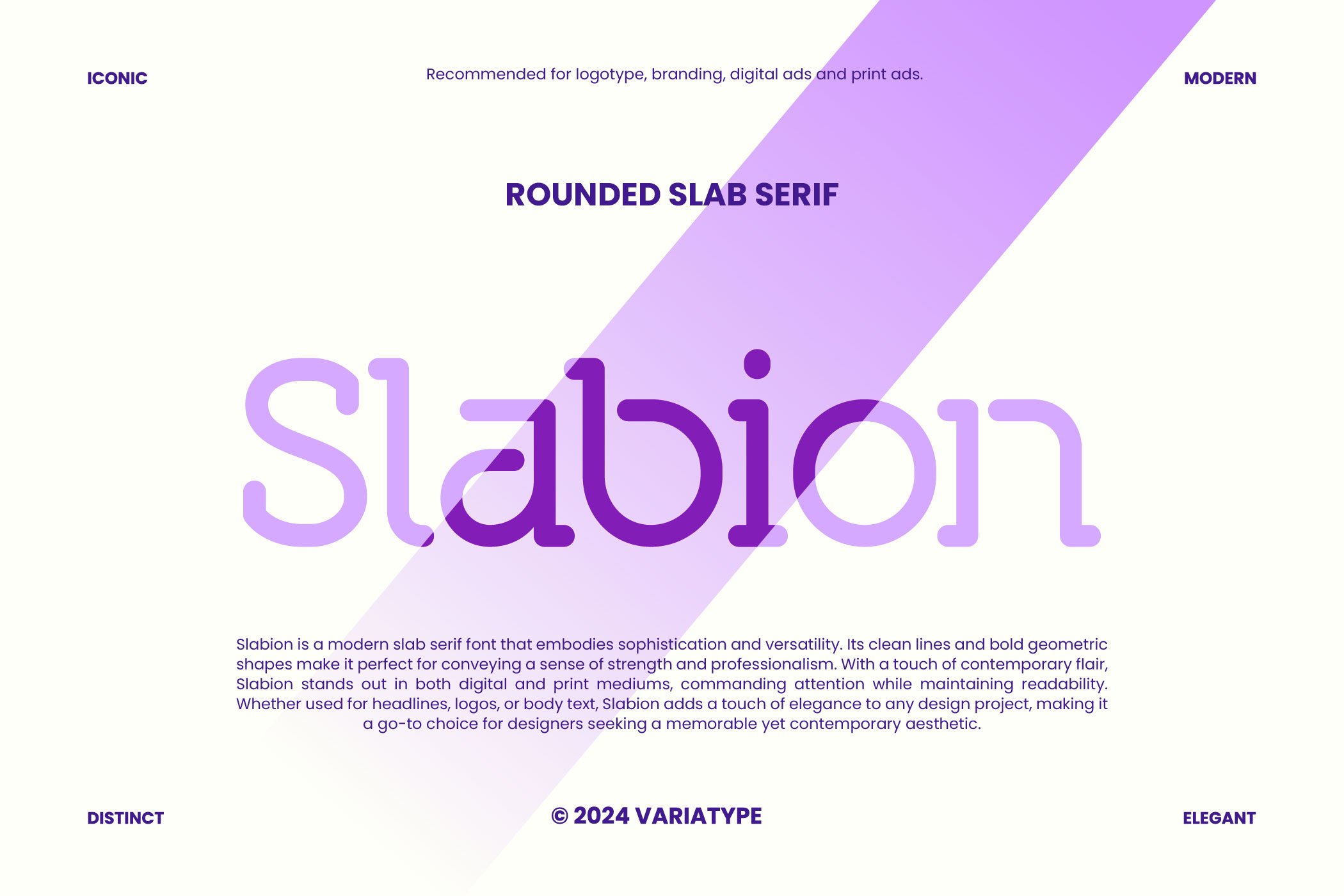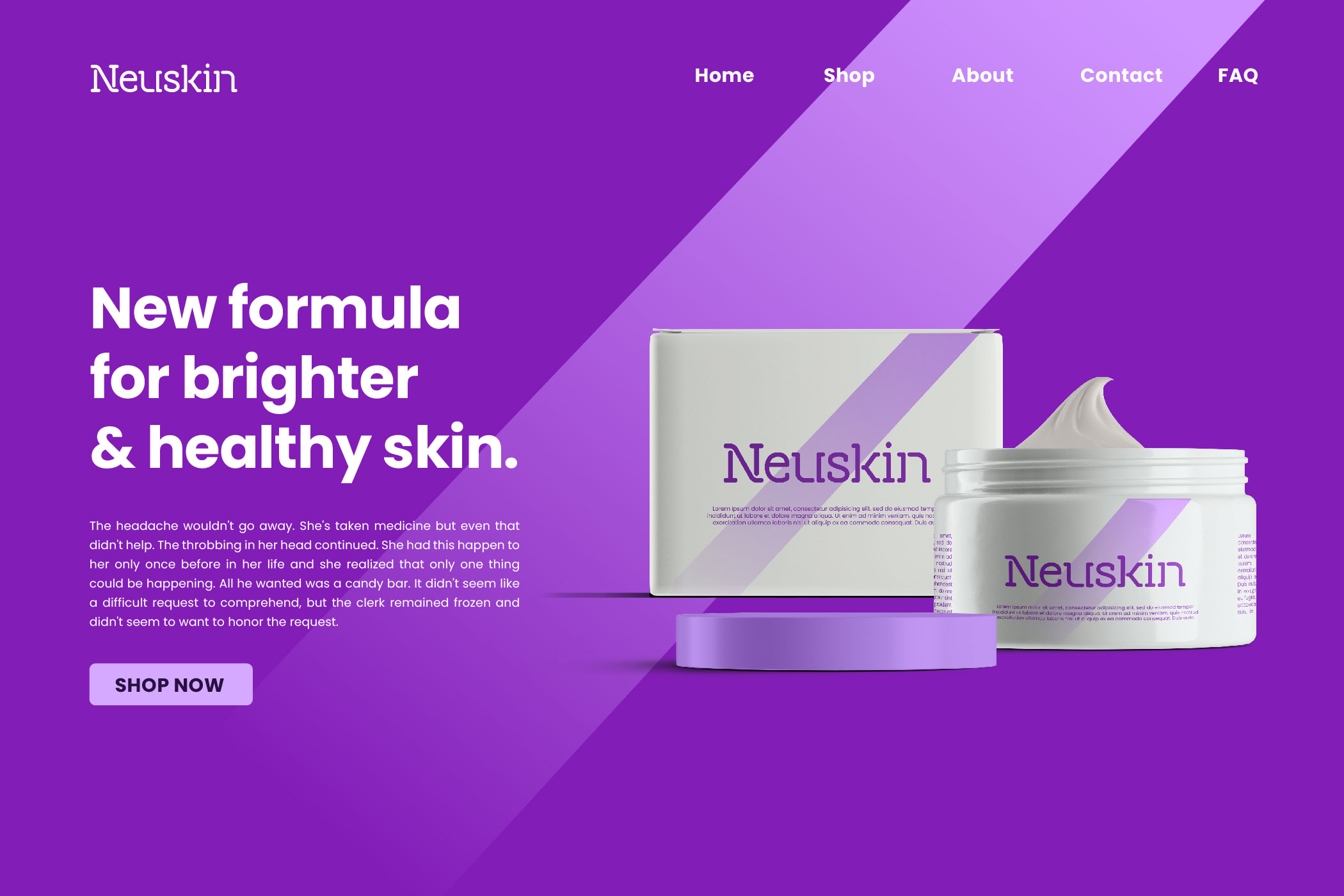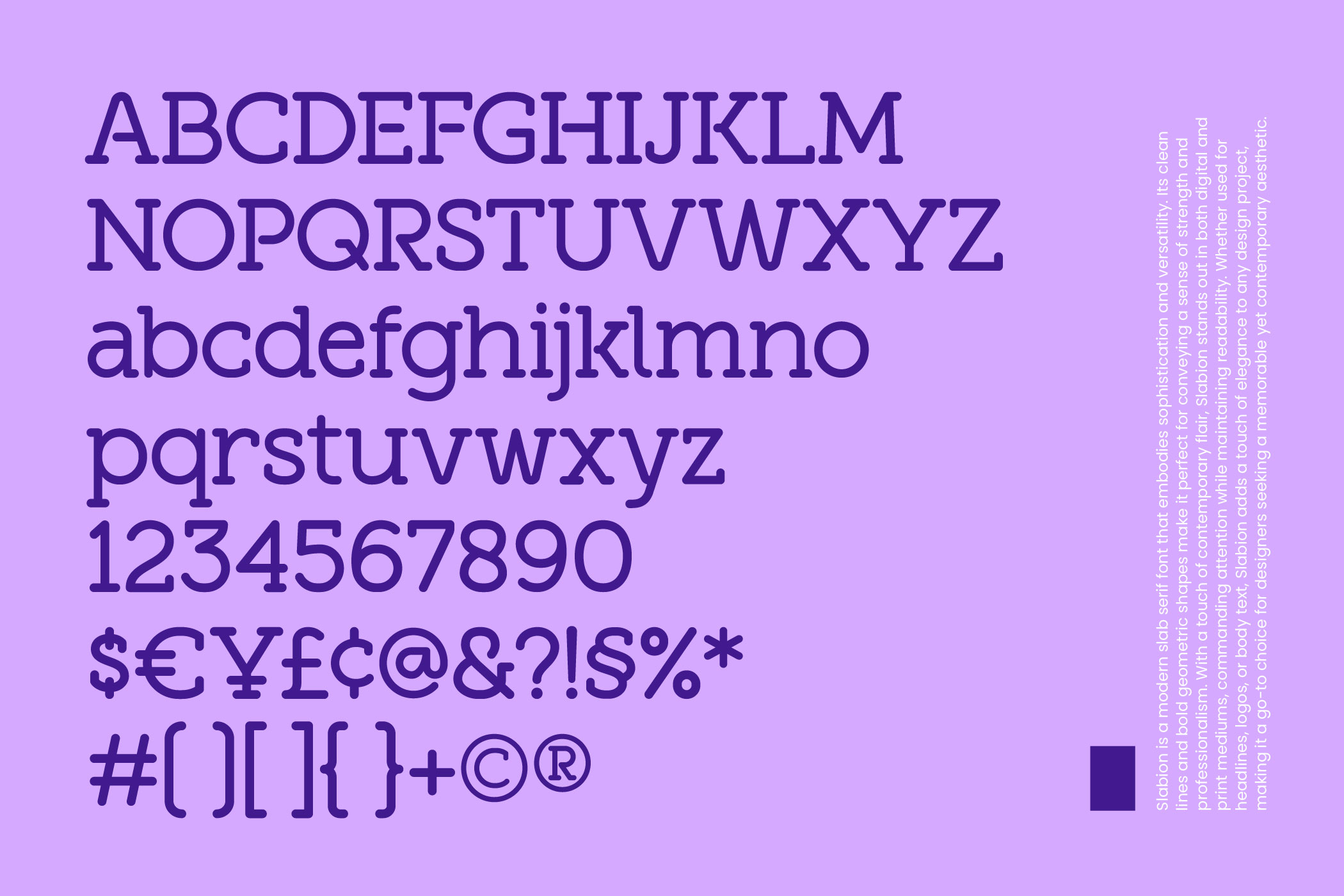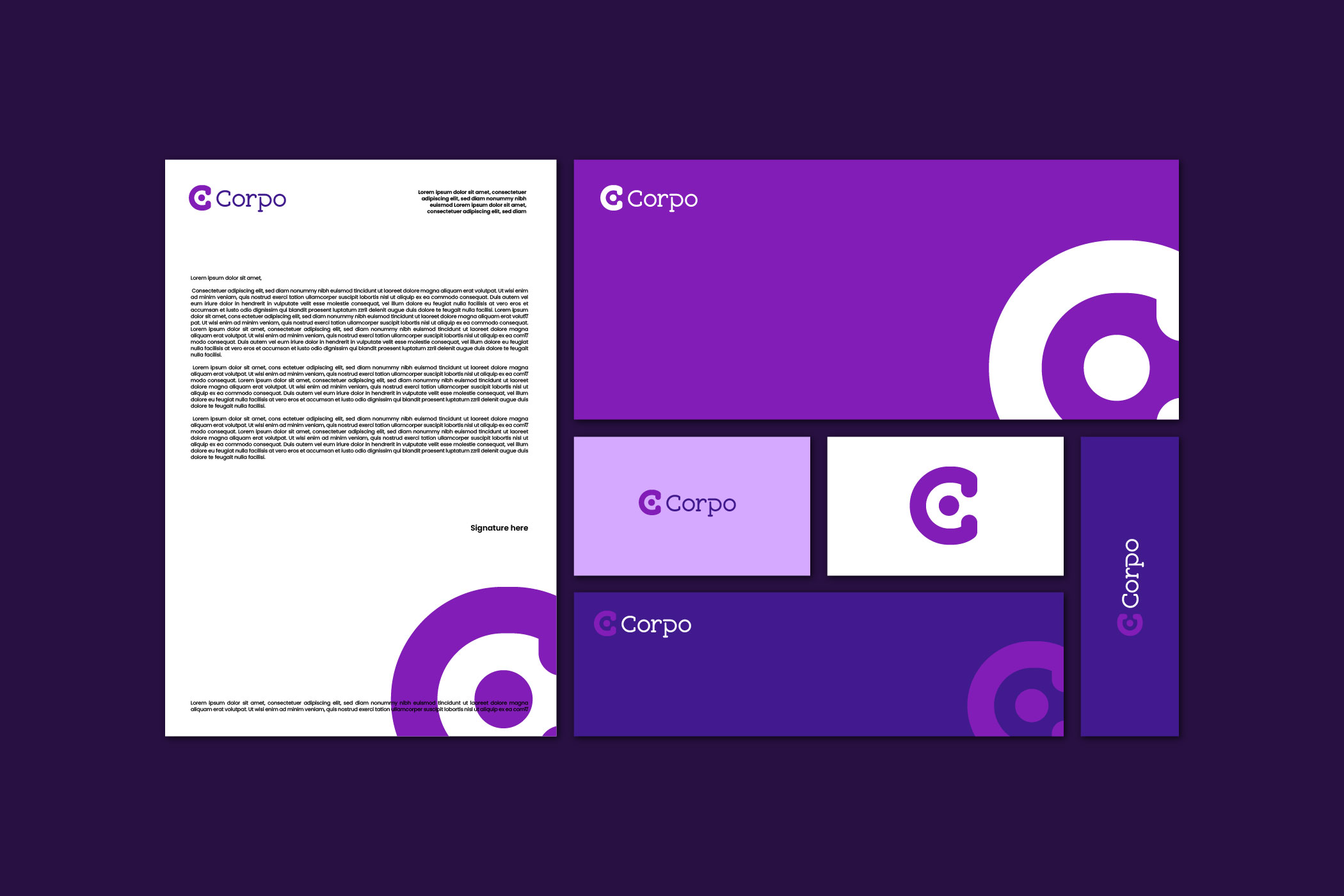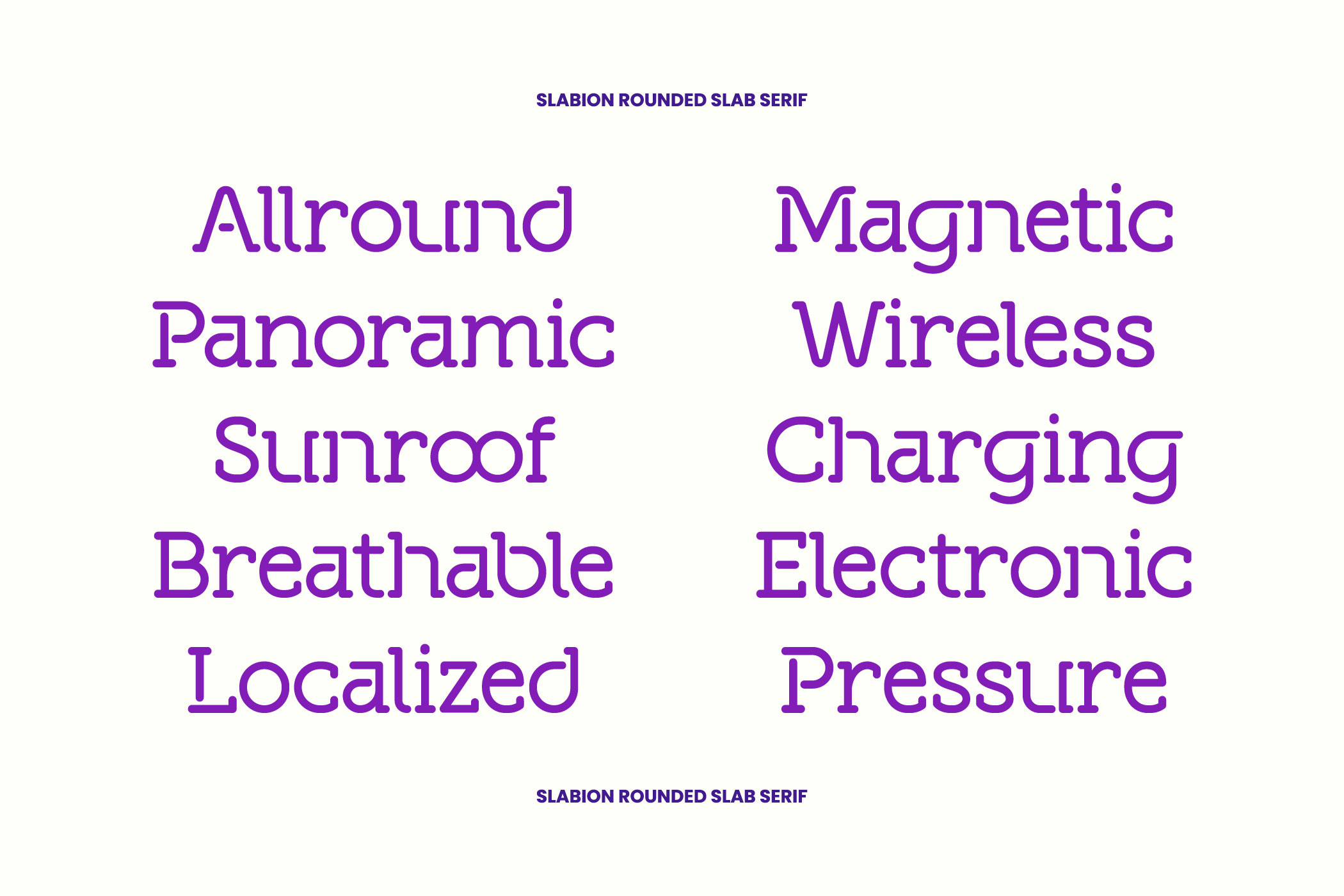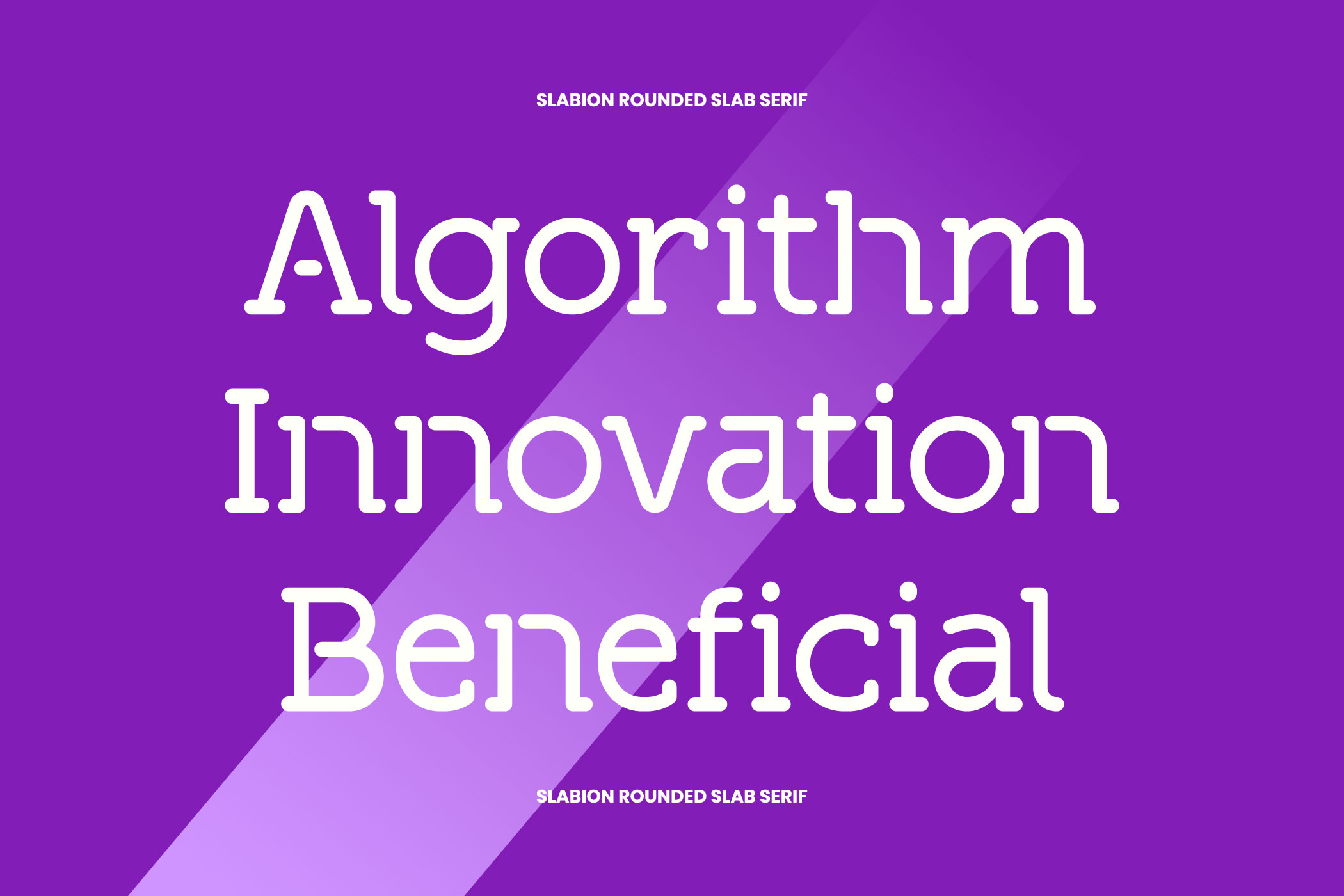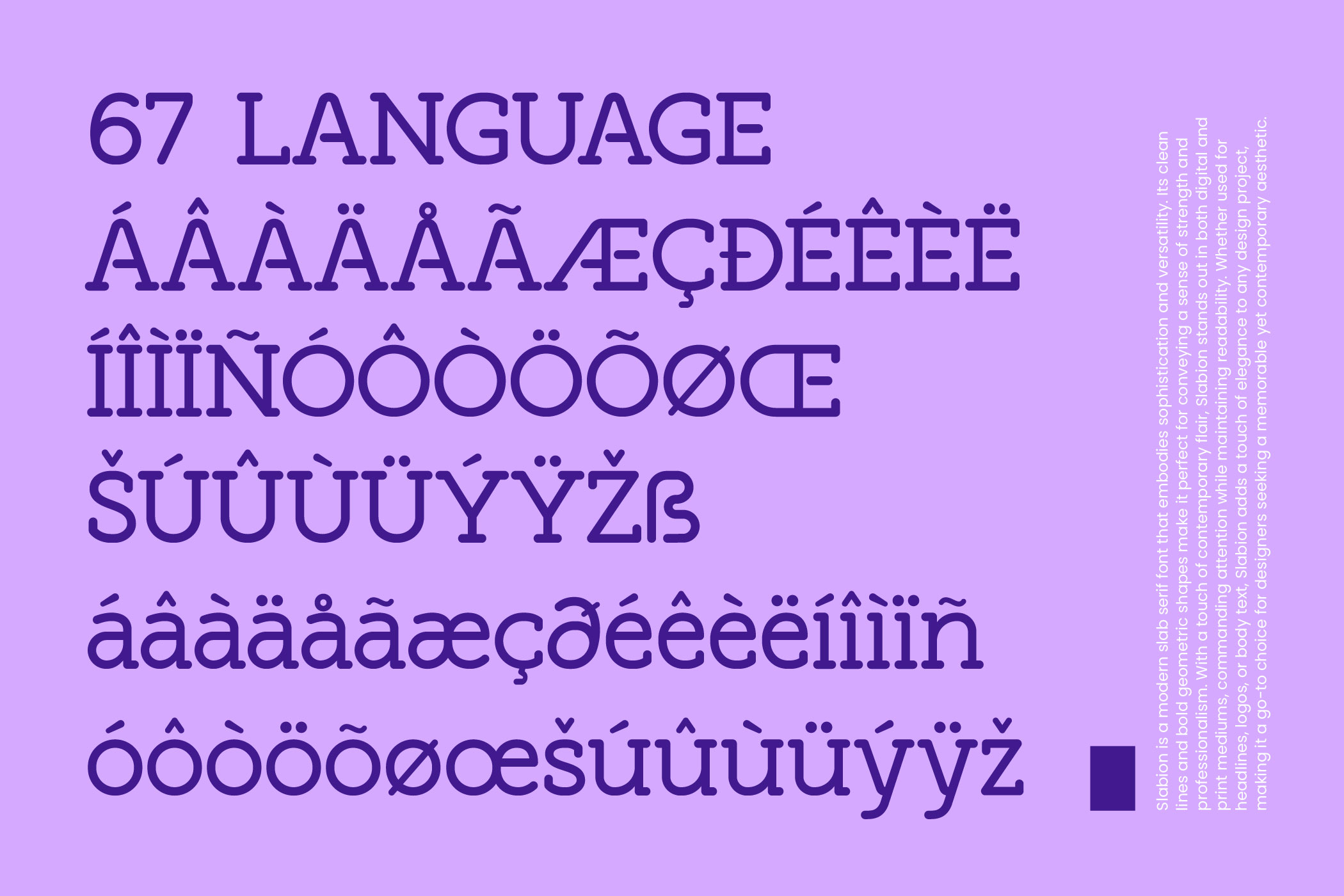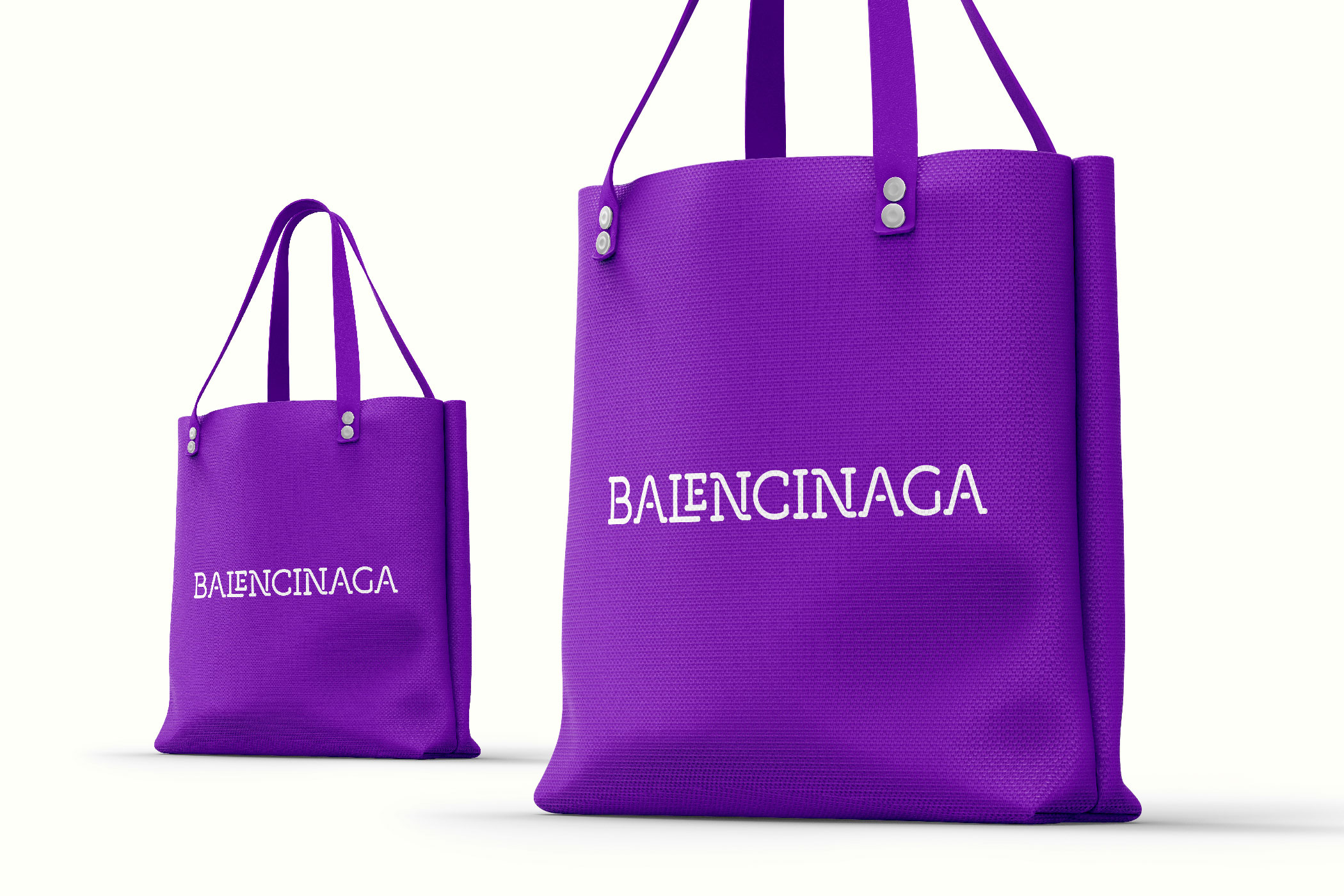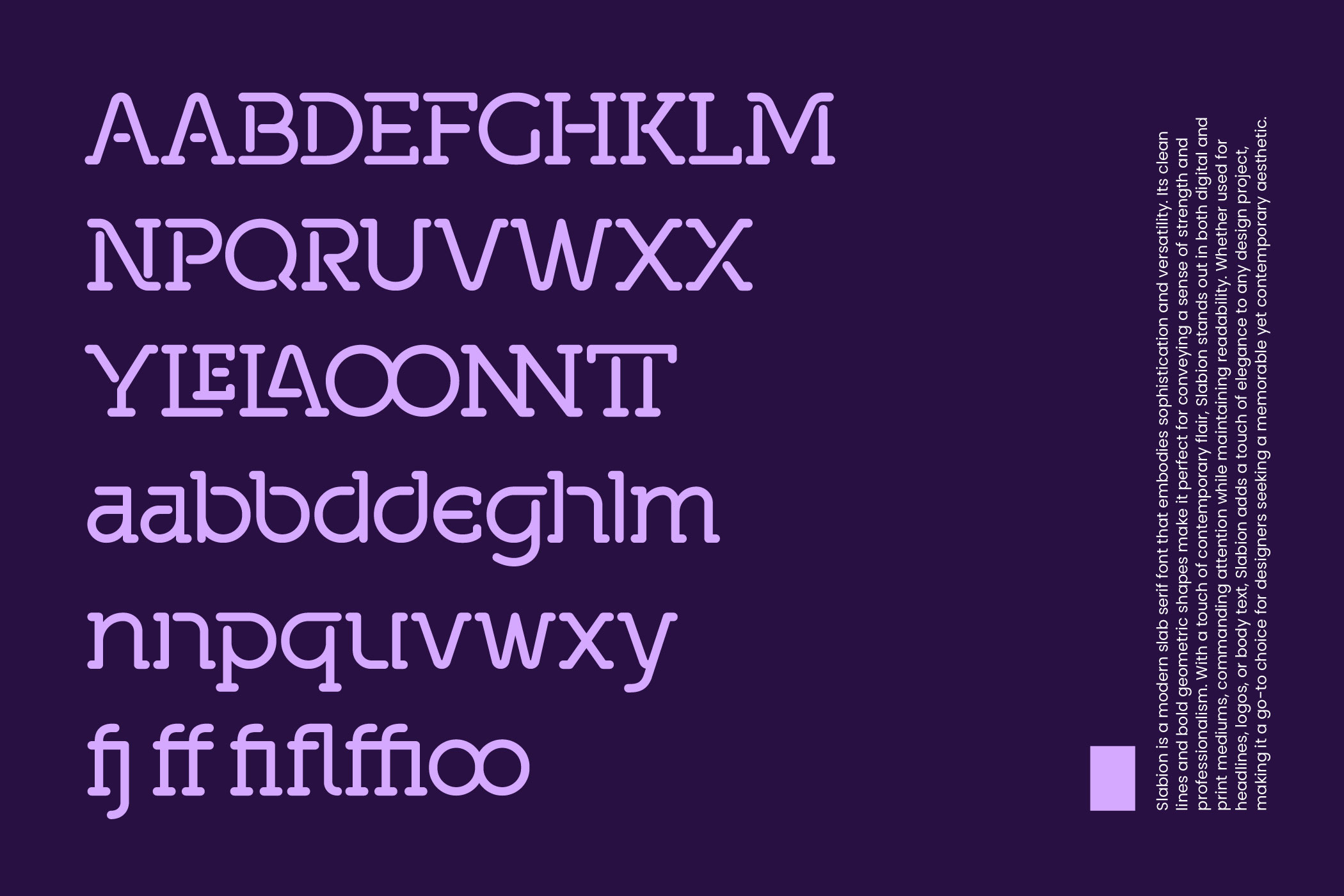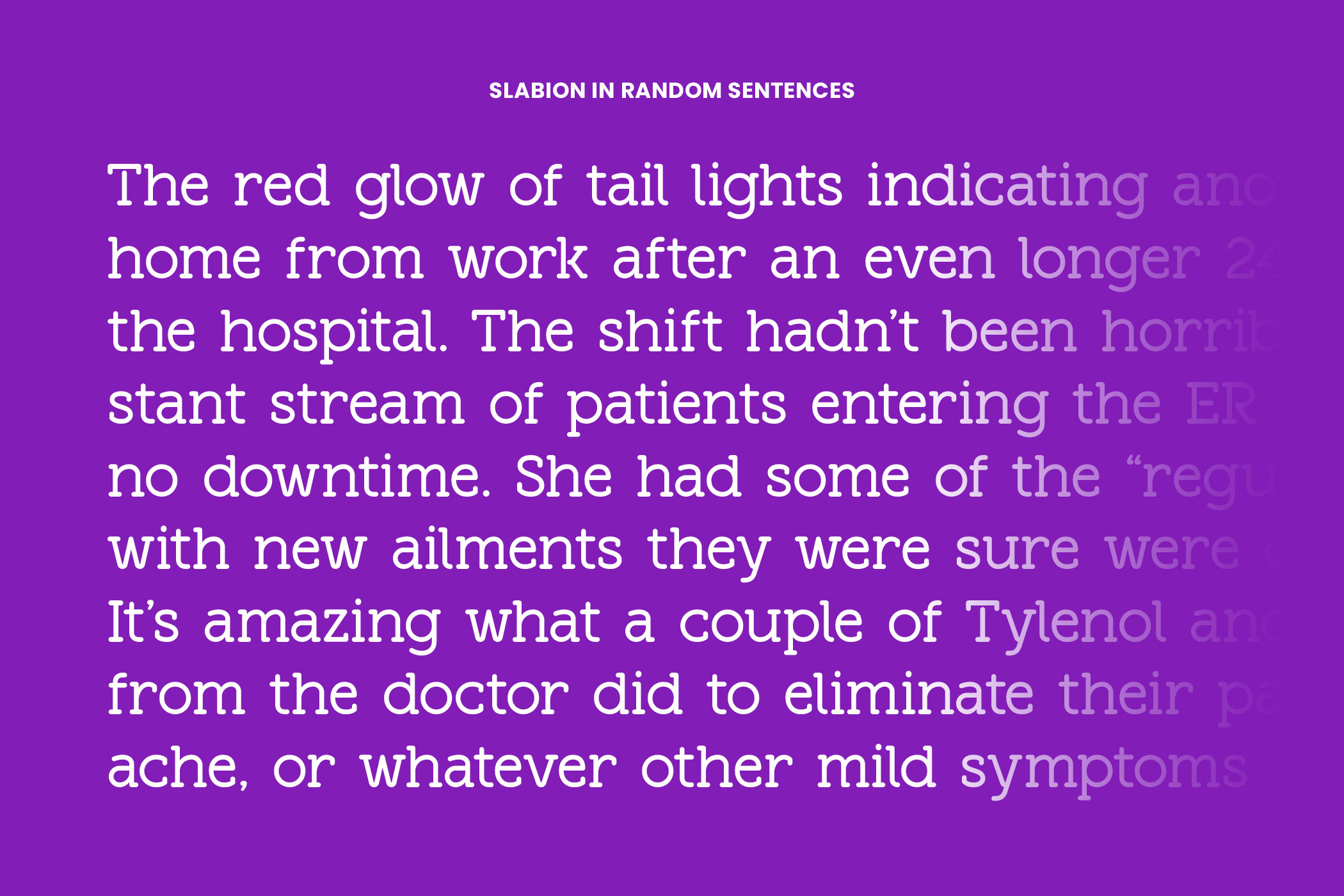
- Slabion – Rounded Slab Serif
Slabion
Slabion is a modern slab serif font that embodies sophistication and versatility. Its clean lines and bold geometric shapes make it perfect for conveying a sense of strength and professionalism. With a touch of contemporary flair, Slabion stands out in both digital and print mediums, commanding attention while maintaining readability. Whether used for headlines, logos, or body text, Slabion adds a touch of elegance to any design project, making it a go-to choice for designers seeking a timeless yet contemporary aesthetic.
FONT FEATURES
- Additional Accents
- 69 Languages
- Kerning
- Alternates
- Ligatures